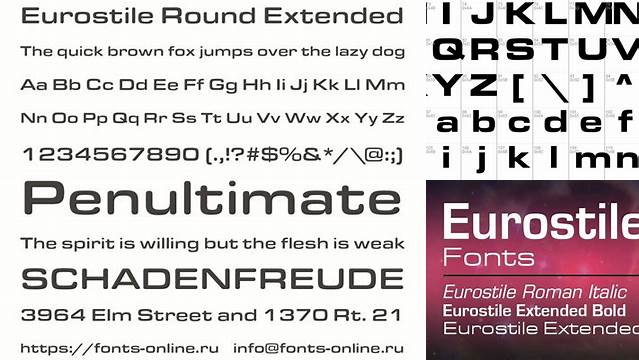
Hey guys! Are you on the hunt for a sleek, modern font that can give your projects a serious boost? Look no further, because we're diving headfirst into the world of the Eurostile Medium Extended font, and the best part? You can get it for free! This article is your one-stop shop for everything you need to know about this awesome typeface, where to snag a free download, and how to use it like a pro. So, buckle up, grab your favorite beverage, and let's get started. We'll cover everything from the font's history and characteristics to practical tips on using it in your designs, and even where you can find it without spending a dime. Let's jump right in and see how you can get your hands on this amazing font, ready to make your designs pop! This guide is designed to be super helpful, even if you're a total beginner. We'll break down all the essential info in a way that's easy to understand, so you can start using this fantastic font right away. Whether you're a graphic designer, a student, or just someone who loves to create, this is the perfect resource for you. By the end of this article, you'll be equipped with everything you need to start using the Eurostile Medium Extended font in your projects with confidence. So, without further ado, let's discover the amazing world of Eurostile Medium Extended font and how you can add it to your font library today!
1. Unveiling the Beauty of Eurostile Medium Extended Font
So, what exactly is the Eurostile Medium Extended font? Simply put, it's a modern, sans-serif typeface known for its clean lines and geometric design. It's part of the larger Eurostile family, which includes a wide range of weights and styles, but the Medium Extended version is particularly versatile. The font's extended width gives it a unique presence, making it ideal for headlines, titles, and anything that needs to grab attention. The design of Eurostile Medium Extended is rooted in the modernist movement, embracing simplicity and functionality. Its clean, uncluttered appearance makes it easy to read, while its extended proportions give it a bold and distinctive look. This combination of readability and impact is what makes it such a popular choice among designers and creatives. Understanding its aesthetics and features is the first step towards unlocking its full potential in your projects. It's more than just a font; it's a statement. It communicates a sense of modernity, sophistication, and professionalism. By choosing to use Eurostile Medium Extended, you're telling the world that you value clarity and design. It's a powerful tool for creating a strong visual identity, and it can be used to great effect across a variety of media. Its clean lines and geometric design give a feeling of simplicity and modernity, making it ideal for a range of applications. Whether you're working on a website, a poster, or a logo, this font can help you achieve a professional and eye-catching look. With its unique characteristics, you can create designs that are both visually appealing and highly readable. Its extended width and geometric design make it a standout choice for headlines and titles.
1.1. Characteristics and Design Elements of Eurostile Medium Extended
Alright, let's dive a little deeper into what makes Eurostile Medium Extended tick. This font isn't just about looks; it's got a specific set of design elements that give it its unique personality. The primary characteristic is, of course, its extended width, making the letters wider than they are tall. This is what gives the font its distinctive, eye-catching appearance. You'll also notice the geometric shapes that make up the letterforms. Many of the curves are perfectly round, and the strokes are clean and consistent, reflecting the modernist principles that inspired its creation. These consistent widths and clean lines contribute to the font's excellent readability, even at smaller sizes. The weight of Eurostile Medium Extended provides a balance between visibility and subtlety. It's not too bold, so it doesn't overwhelm the text, but it's also not too light, making it easy to read. This balance makes it a great choice for both display and body text in certain contexts. The kerning (the spacing between letters) is carefully crafted to ensure a smooth reading experience. This attention to detail is what makes the font so polished and professional looking. Understanding these nuances will help you make the most of Eurostile Medium Extended in your projects. When you know the design elements, you can tailor your use of the font to achieve specific effects. For instance, using it in headings, where its extended width can create a strong visual impact, or in logos to make a bold statement. By mastering these details, you can harness the full potential of this font.
1.2. The History and Evolution of Eurostile Font
Okay, history buffs, time to geek out a little bit! The Eurostile font family has a fascinating background. Designed by Aldo Novarese and released by Nebiolo in 1962, it was initially created to capture the spirit of the space age and technological advancement. The font quickly gained popularity, especially in the design and advertising industries. Its clean, modern aesthetic aligned perfectly with the minimalist trends of the time. Over the years, the Eurostile family expanded, with different weights and styles being introduced. The Medium Extended version, as we know it, is a prominent member of this extended family, prized for its distinctive design. It’s a testament to its enduring appeal that it remains widely used today. It continues to be a favourite among designers. The font's timeless design reflects the values of clarity, precision, and modernity. These ideals have made the Eurostile font family a staple in the design world for decades. The font's longevity is proof of its quality and versatility. As design trends have evolved, Eurostile has adapted and stayed relevant. It continues to be employed by a variety of industries and organizations. Its presence can be seen in everything from corporate branding to movie titles. The font's capacity to reflect technological advancements and modernity has made it a great choice across various media. Understanding its history gives a better appreciation of its impact and enduring relevance.